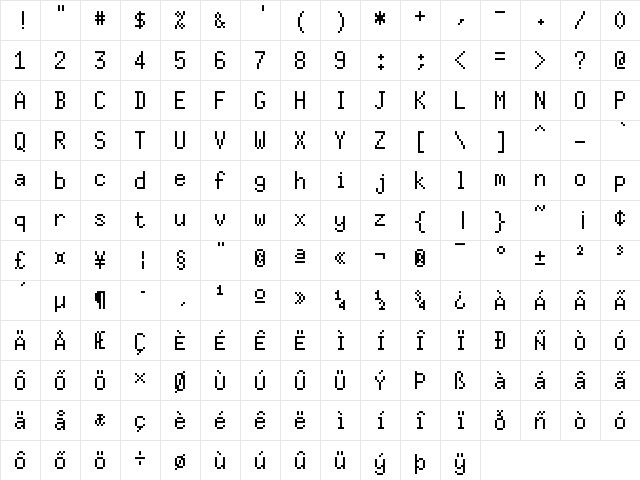
MiscFixedSC613 Regular Font Preview
MiscFixedSC613 Regular
MiscFixedSC613 Regular Font Details
Design Context for MiscFixedSC613 Typeface
MiscFixedSC613 offers clean, dependable letterforms without strong stylistic allegiance, making it a practical choice for designers who need flexibility.